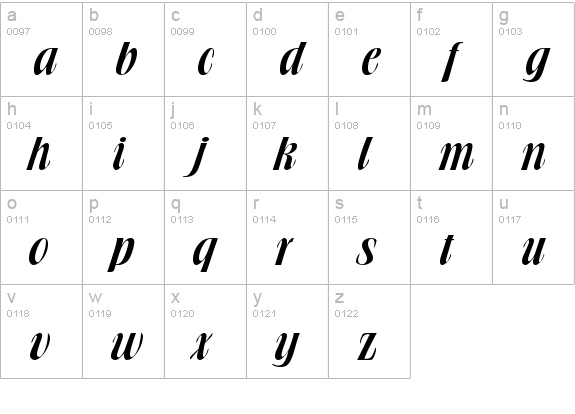
Book Jacket Font Details
Book Jacket is a comfortable, highly readable variant in the Book typeface family \xE2\x80\x94 well suited to long-form body text, articles, and editorial content.
Introducing Book Jacket font, a timeless and elegant typeface that exudes sophistication and charm. Perfect for all your literary projects, this font combines classic elements with a modern twist, making it ideal for book covers, posters, and more. With its clean lines and graceful curves, Book Jacket font will add a touch of refinement to any design. The best part? Book Jacket font is available for free download at FontsMarket.com. That's right, you can elevate your typography game without breaking the bank. So go ahead, enhance your creations with the beauty of Book Jacket font and watch your designs come to life.